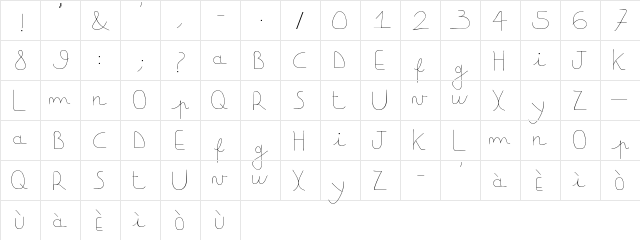
downligthboy Regular
Design Context for downligthboy Typeface
downligthboy takes a measured approach to typography — its balanced proportions and neutral character make it a reliable workhorse for both digital and print work.